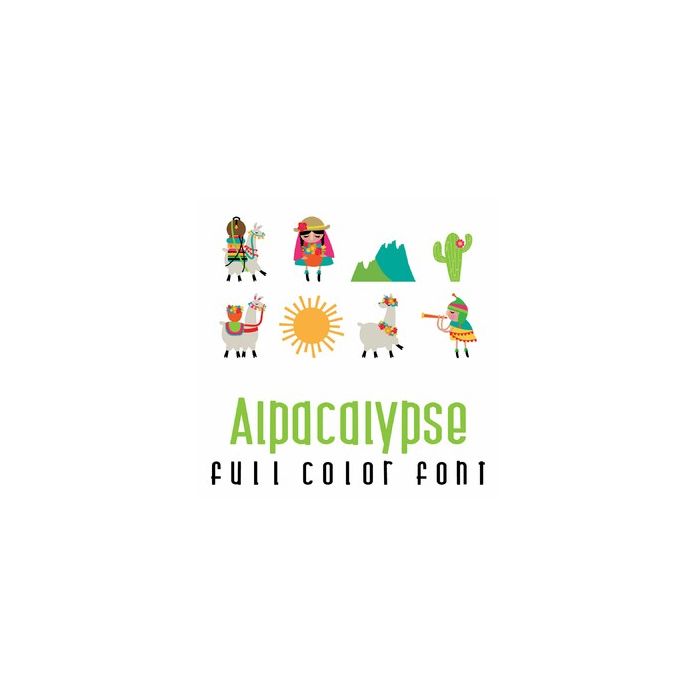
This adorable full-color doodlebat font features 26 adorabla Alpacas, Peruvians. Perfect for cards, crafts, gifts, decor, scrapbook pages, planner stickers, parties, and more!